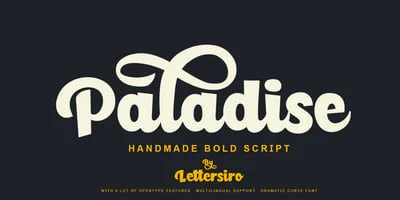
Paladise Font
Paladise Font is perfect for fantasy gaming publications, medieval role-playing games, heroic adventure novels, knightly order ceremonies, medieval fantasy festivals, chivalric romance literature, heroic quest narratives, noble warrior branding, medieval honor societies, paladin guild communications, fantasy tabletop gaming, and distinguished heroic fantasy entertainment projects.
This font is exciting because it captures the noble righteousness and heroic grandeur of legendary paladins, featuring majestically honorable letterforms that stand with the same unwavering virtue and divine purpose found in the greatest holy warriors who dedicate their lives to protecting the innocent, vanquishing evil, and upholding justice through righteous strength and unwavering moral courage that transforms ordinary mortals into legendary champions of light and defenders of all that is good and pure in the world. The divinely crafted character design embodies both the martial prowess required for righteous combat and the spiritual purity that defines true paladin virtue, creating typography that feels both heroically powerful and morally inspiring. Each letter radiates the kind of noble virtue and divine righteousness that transforms ordinary text into heroic declarations worthy of the most legendary champions and sacred quests for justice.
The Paladise Font family includes regular and bold weights with complete character sets featuring heroic numerals, righteous punctuation marks, and decorative elements inspired by holy symbols, knightly heraldry, divine light effects, and sacred warrior imagery. Advanced versions may offer additional stylistic variants with enhanced divine effects, alternate characters that create noble connections, and heroic ornaments that celebrate the virtue and courage inherent in paladin traditions and righteous warrior culture.
Whether you're developing fantasy gaming materials, creating heroic entertainment content, or designing noble warrior branding, Paladise Font provides the heroic righteousness and divine nobility your project needs to inspire audiences who appreciate the timeless appeal of legendary heroes, moral courage, and the eternal struggle between good and evil that defines the greatest fantasy adventures and heroic legends. This typeface transforms ordinary text into heroic declarations that honor both the martial excellence of legendary warriors and the moral purity that separates true heroes from mere fighters. The font's heroic character makes it essential for gaming companies and entertainment brands that celebrate heroic fantasy and noble warrior traditions. Fantasy gaming enthusiasts and heroic adventure creators will appreciate how this font brings authentic paladin nobility to their work with its genuinely righteous and heroically inspiring character that champions justice.